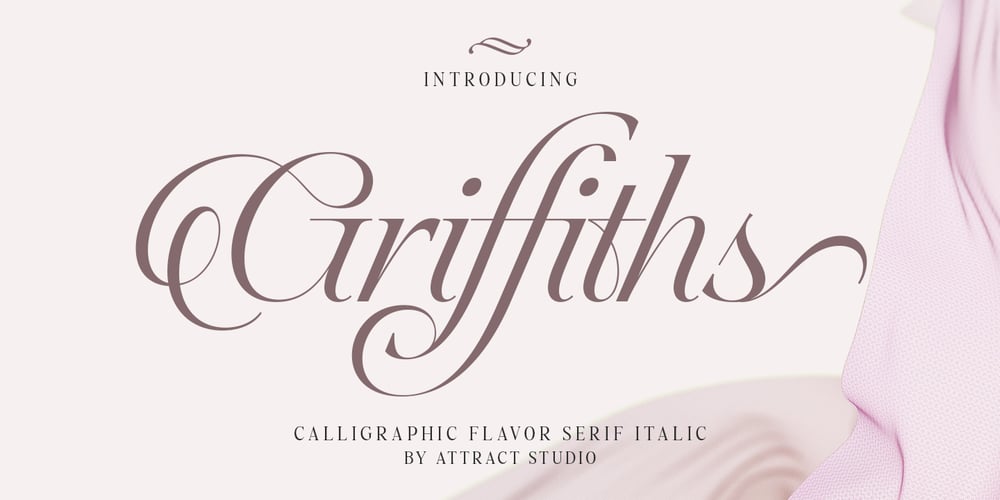
Griffiths Font Family was designed by Muammar Kadafi and published by Attract Studio. Griffiths contains 2 styles and family package options. Griffiths is a clean italic serif designed to be stylized and combined with a dynamic calligraphic font that is angled at twenty-three degrees. Griffiths is equipped with multilingual support and a set of OpenType features such as alternates and ligatures.Font Pairings : Bethany ElingstonIncluding : 2 Weights Alternatives & Ligatures OpenType support Multilingual PUA encoded.